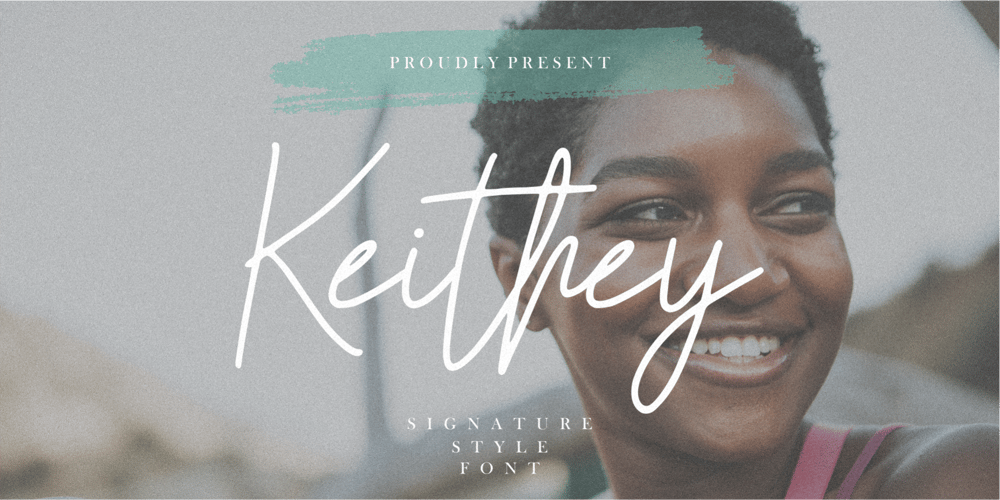
Keithey Font Family was designed by Rizal Dewanto and published by Enigma Lettering Studio. Keithey contains 1 styles and family package options. Introducing by Enigma Lettering StudioProudly Present, KeitheyKithey is a Signature Style FontKeithey is perfect for product packaging, branding project, megazine, social media, wedding, or just used to express words above the background.Keithey also come with Multi-Lingual Support.We highly recommend using a program that supports OpenType features and Glyphs panels like many of Adobe apps and Corel Draw, so you can see and access all Glyph variations.Enjoy the font, feel free to comment or feedback, send me PM or email.